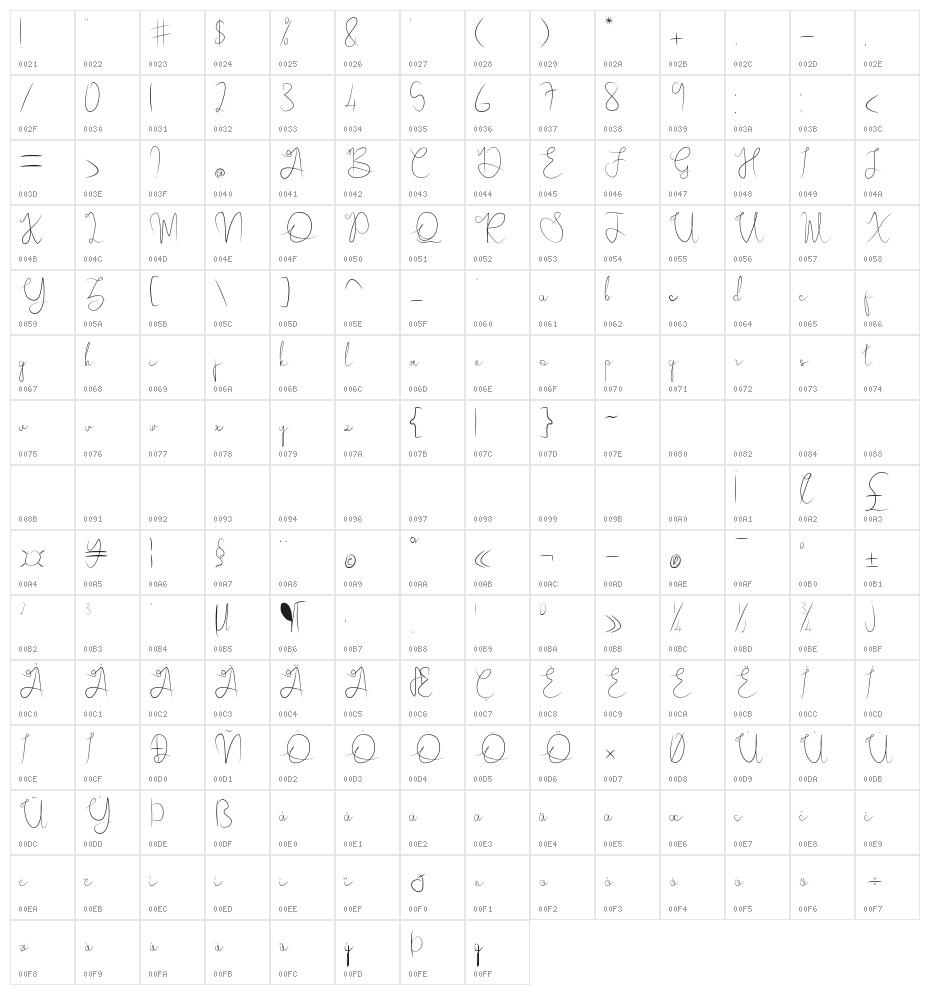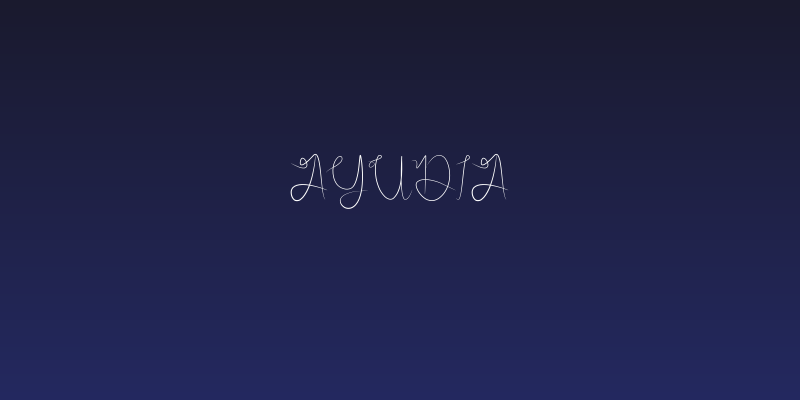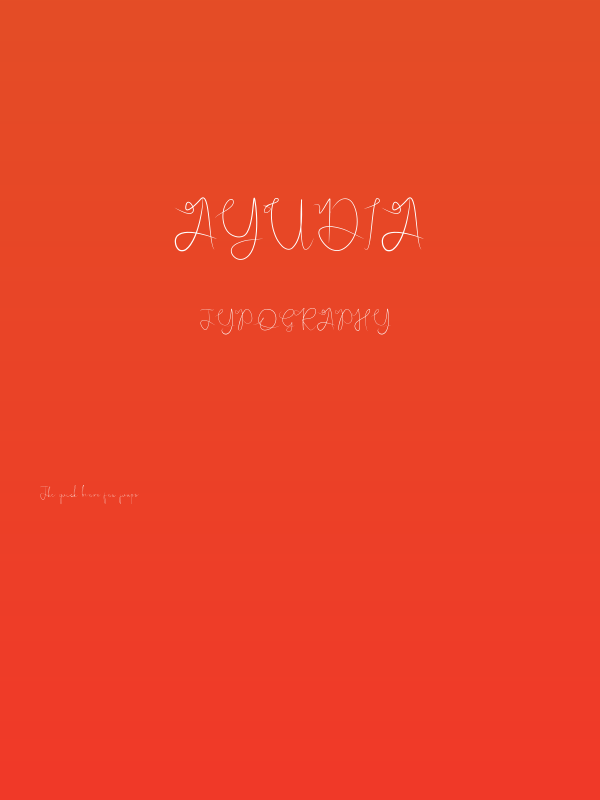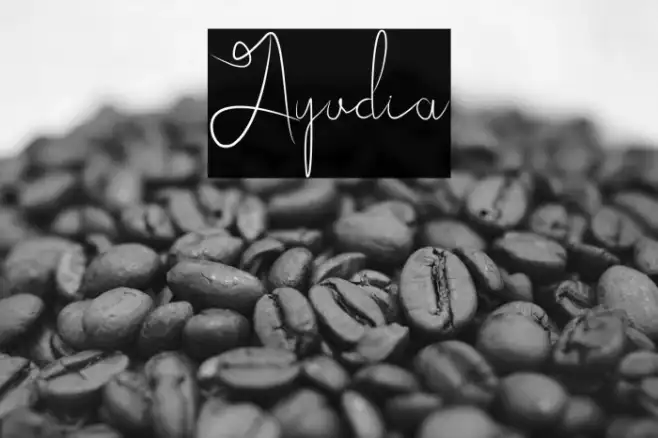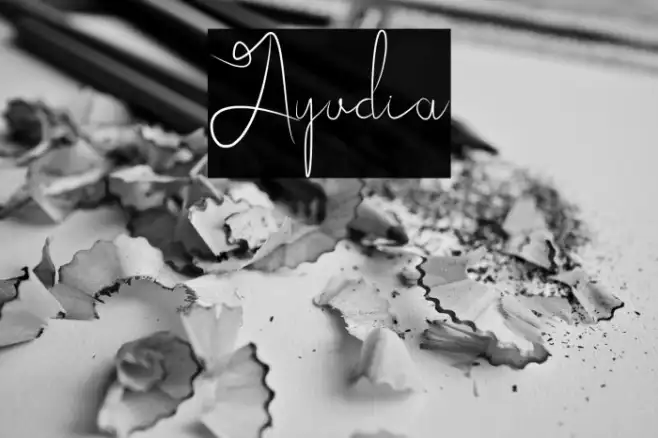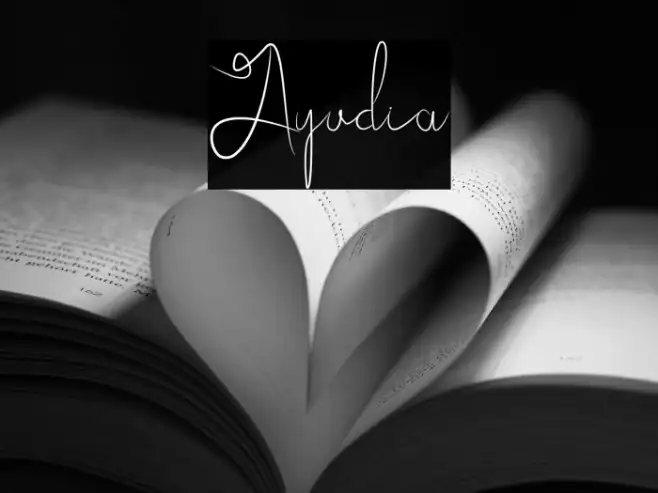
Ayudia Font
Ayudia Description
This font features an elegant and flowing script style, characterized by its delicate and intricate letterforms. The uppercase letters exhibit a graceful, looping design with a sense of fluidity and movement, while the lowercase letters maintain a consistent, cursive appearance. The numerals and special characters are crafted with the same attention to detail, ensuring a cohesive look throughout. The thin strokes and high contrast give it a refined and sophisticated feel, making it ideal for projects that require a touch of elegance and charm.
| Proposed Projects | Ideal for wedding invitations, greeting cards, elegant branding, and decorative projects. |